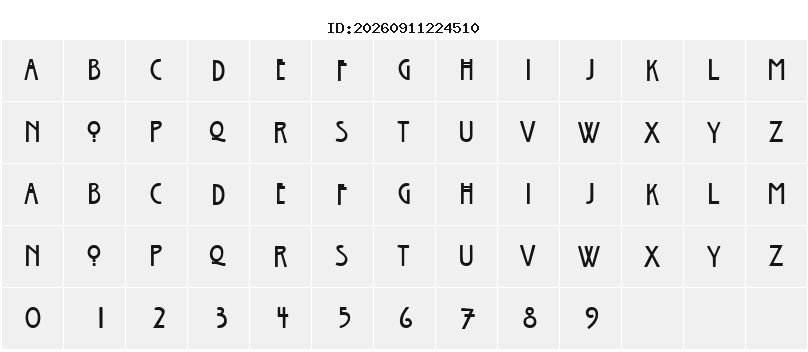
• Font Name: Willow
• Full Font Name: Willow
About Willow.ttf
Willow.ttf is a modern, elegant sans-serif font designed for ultimate readability and visual harmony. Perfect for branding, headlines, web design, and print materials.